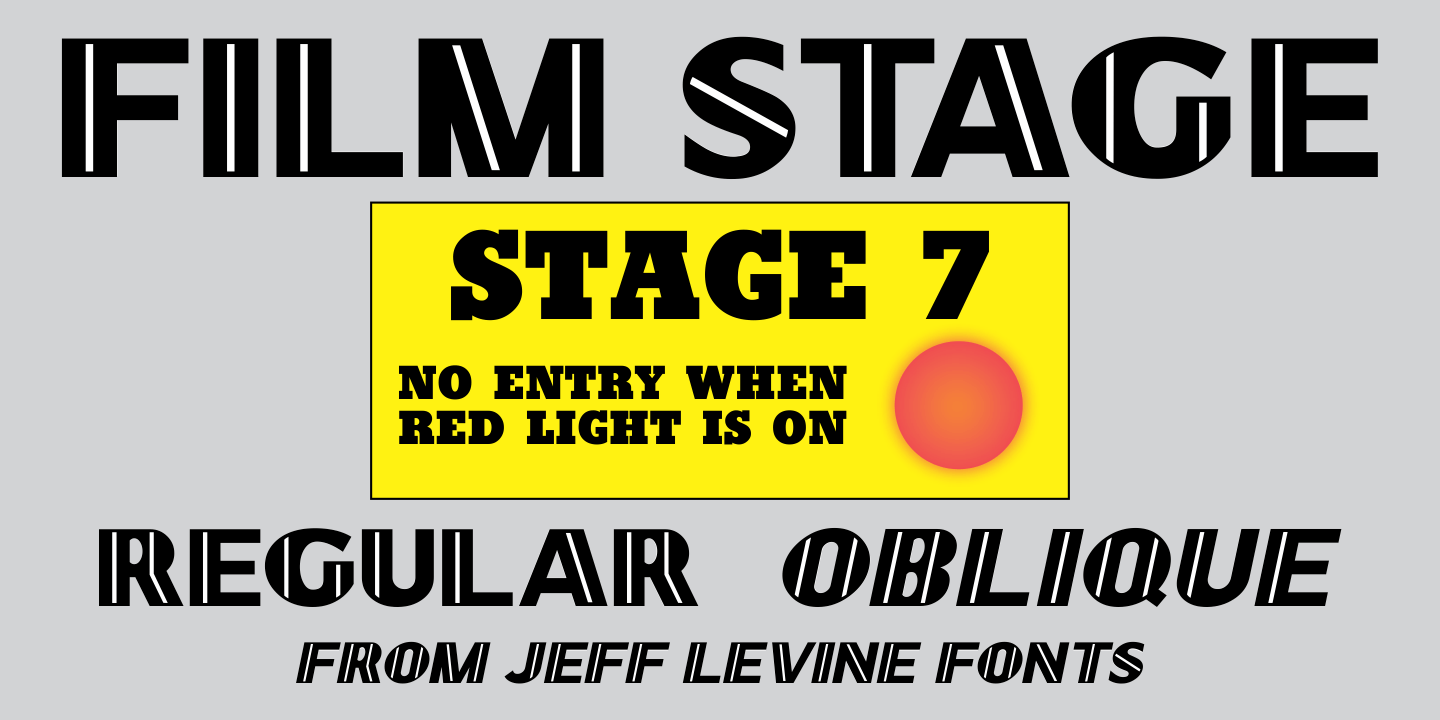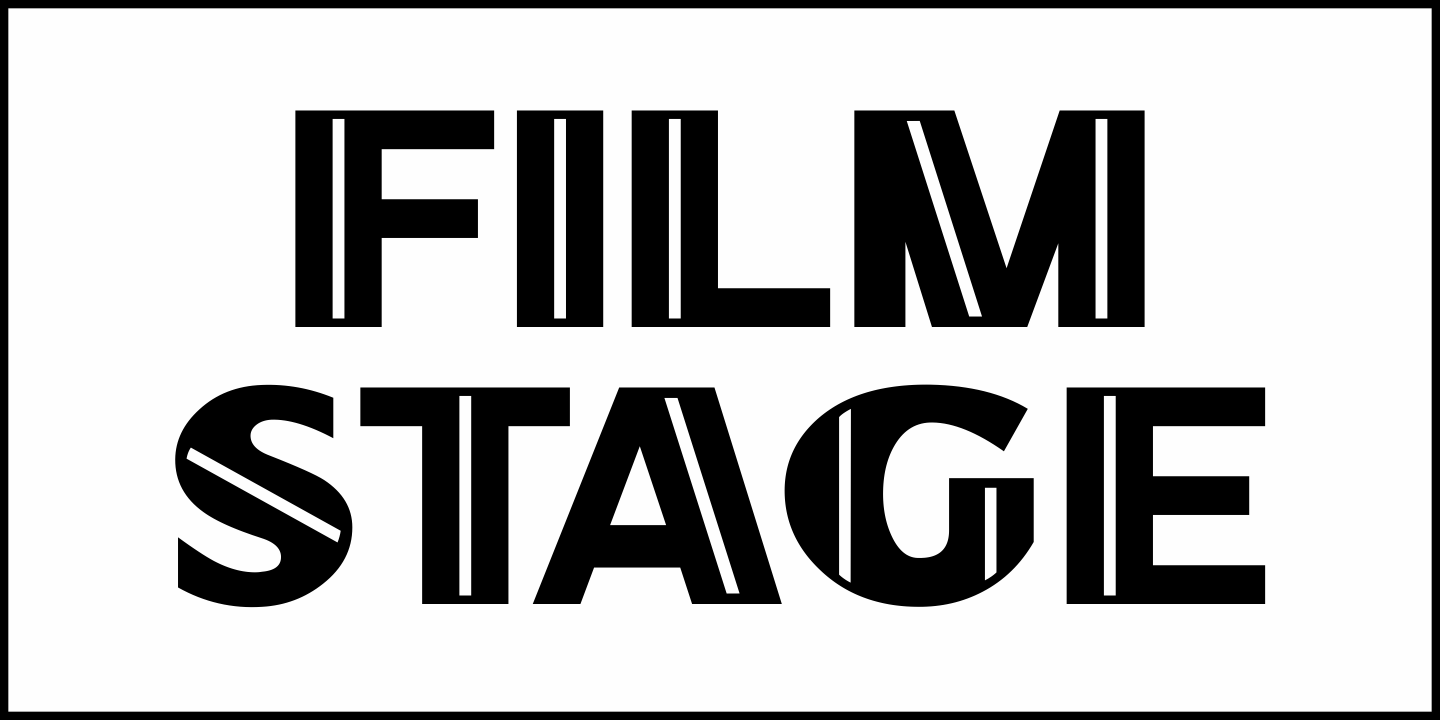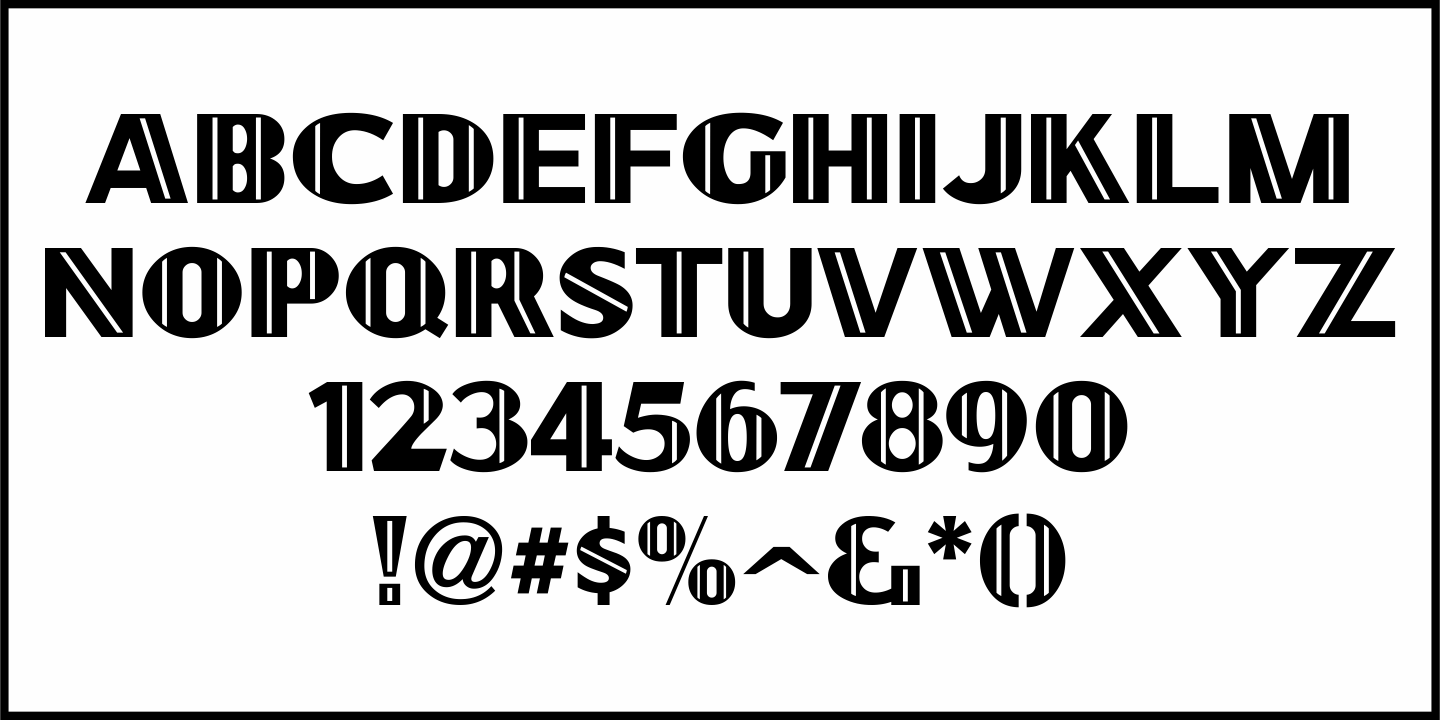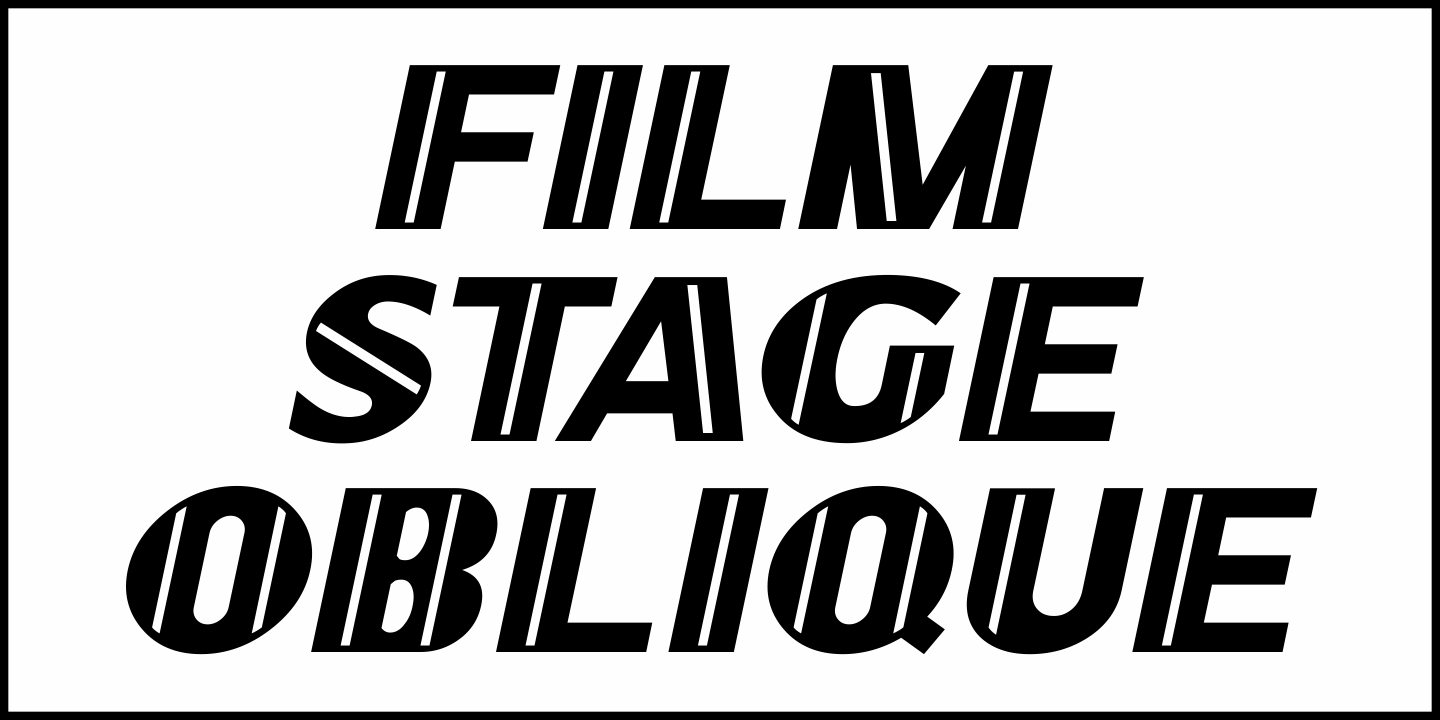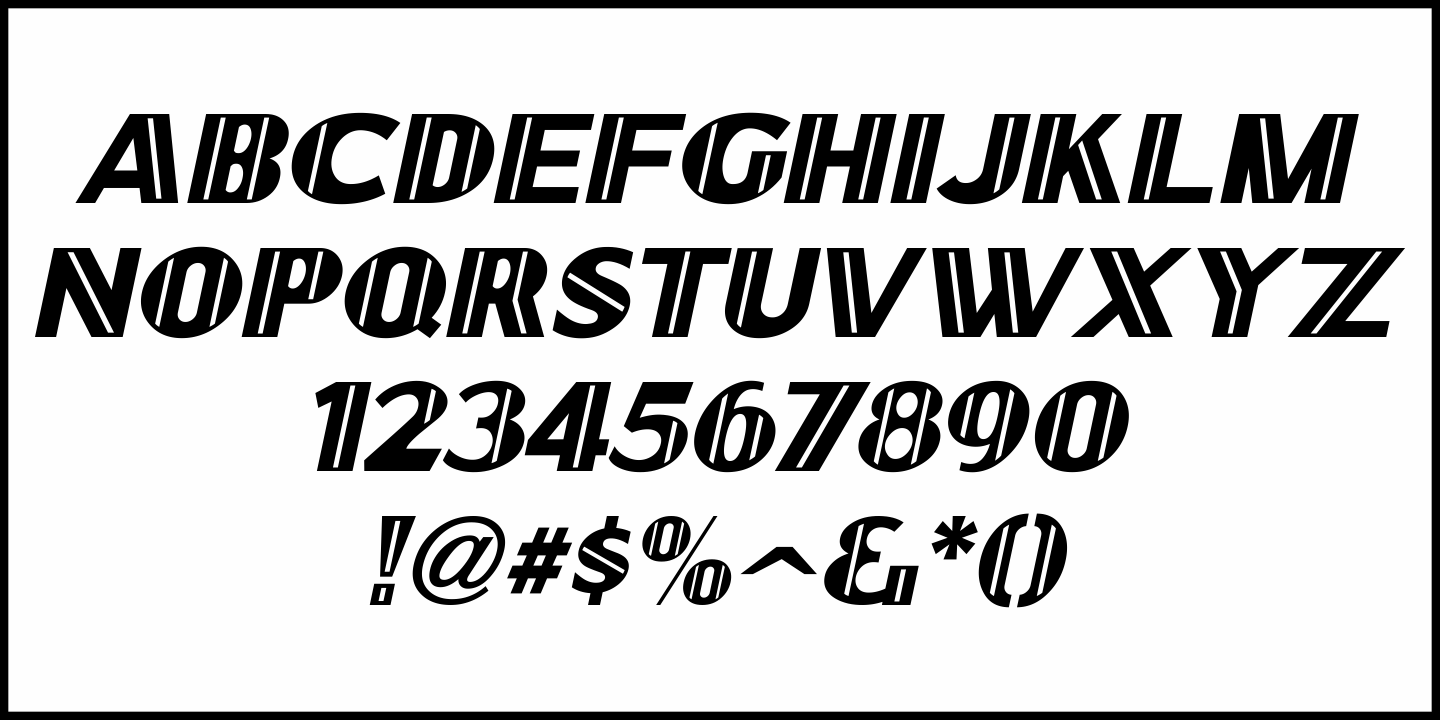
Film Stage
Hand lettering of the early 20th Century has a special charm because it focused more on the message than the aesthetics.
While many of today's digital typefaces strive for perfection, there is something unique in those old ads, posters, fliers and signs because the lettering didn't conform 100%. Stroke widths could change, characters could be modified to suit a purpose, and even the widths of the letters and numbers could vary greatly. The style mattered, but the ad copy was more important.
One such example comes from the Feb. 27, 1929 issue of The Film Daily. An ad for Douglas Fairbanks appearing in "The Iron Mask" was hand lettered in a bold Art Deco "thick and thin" sans with 'engraving lines' throughout.
This now available as Film Stage JNL, in both regular and oblique versions.